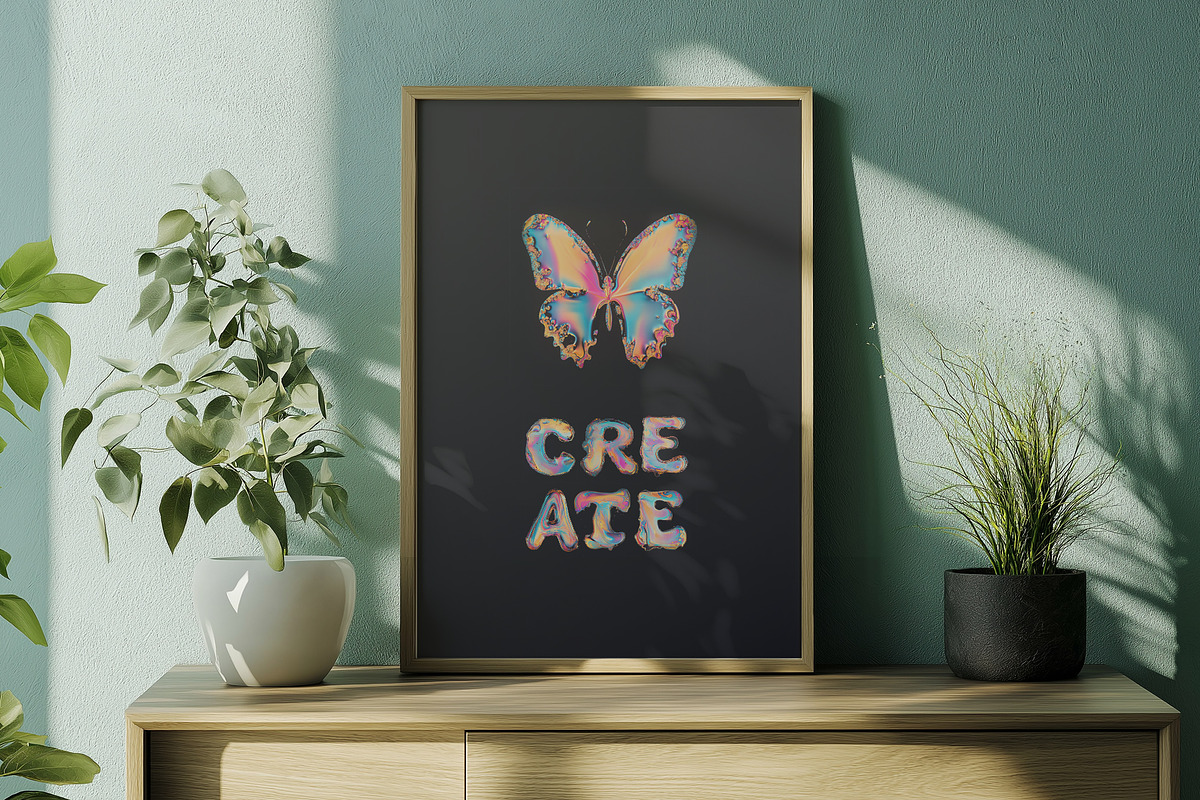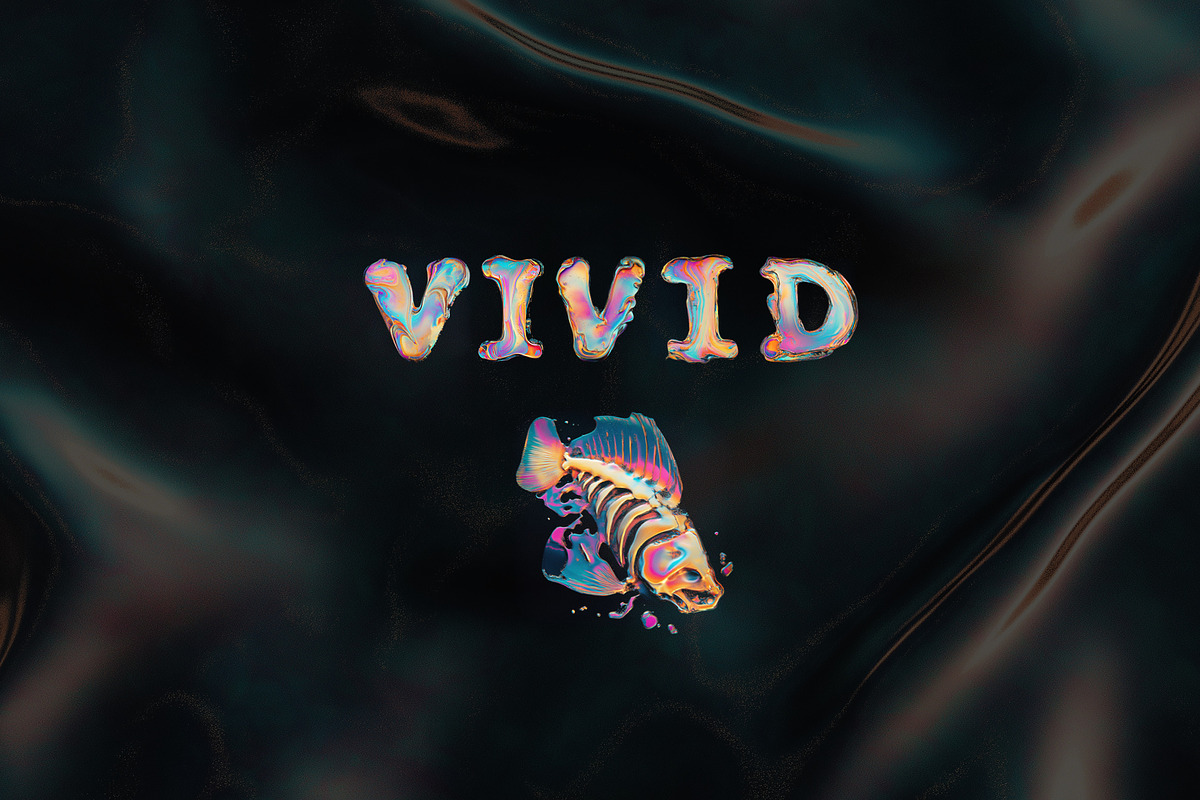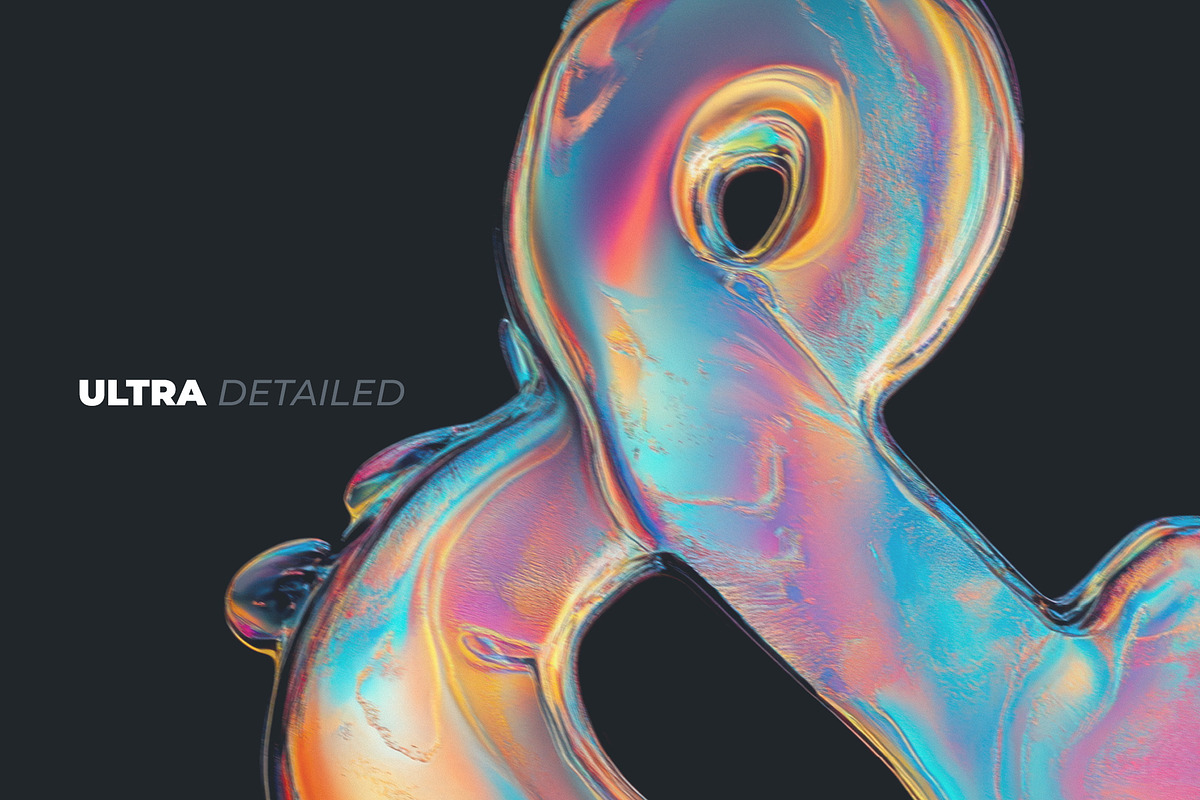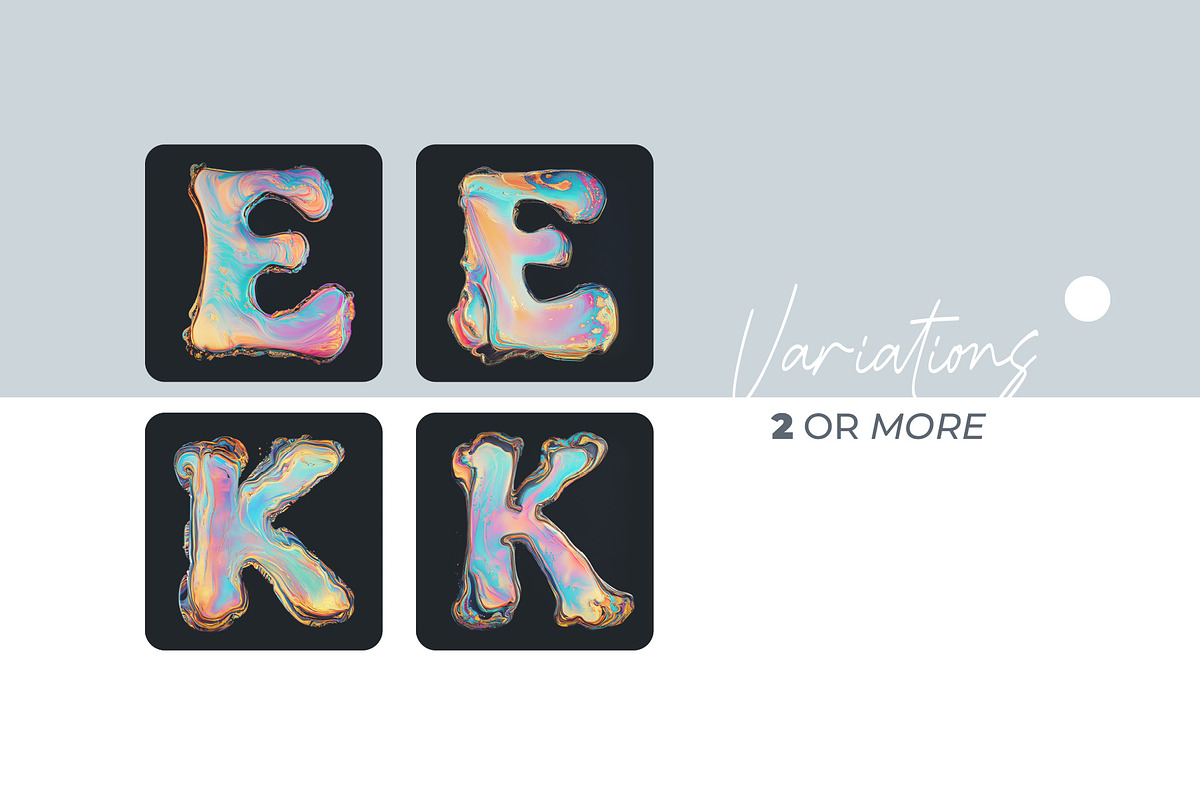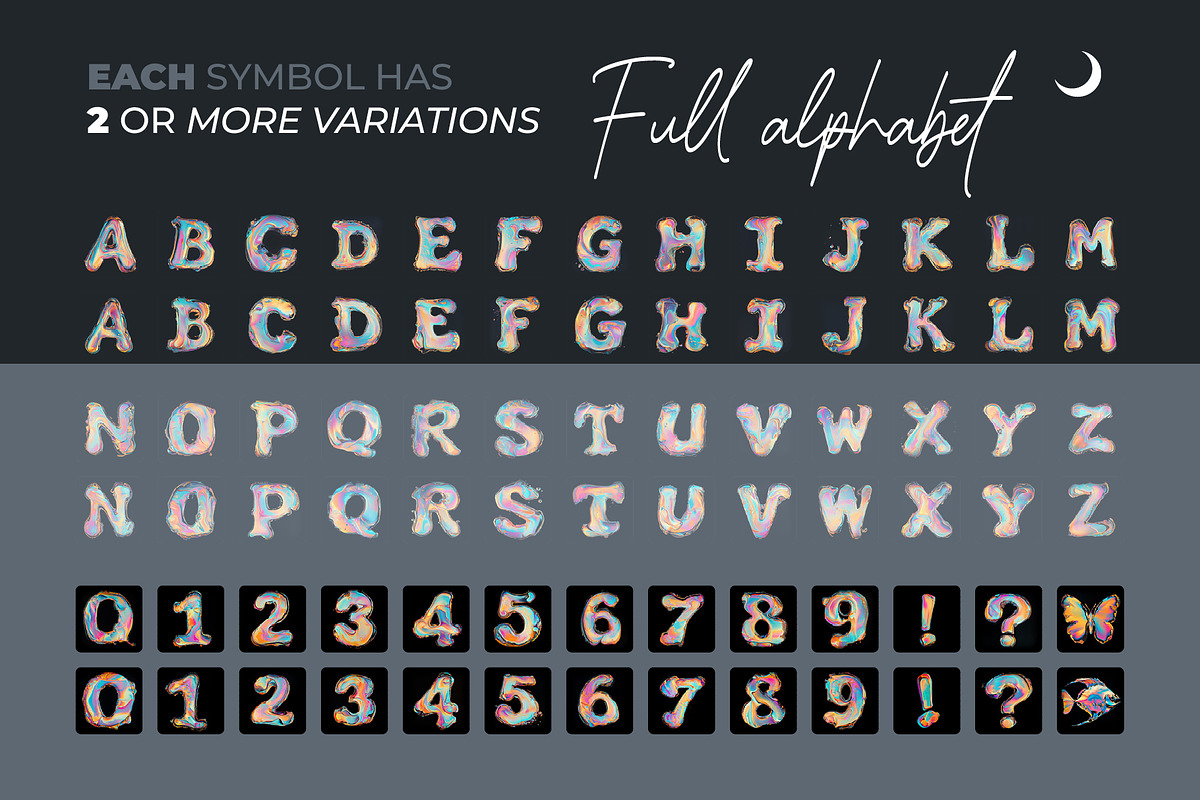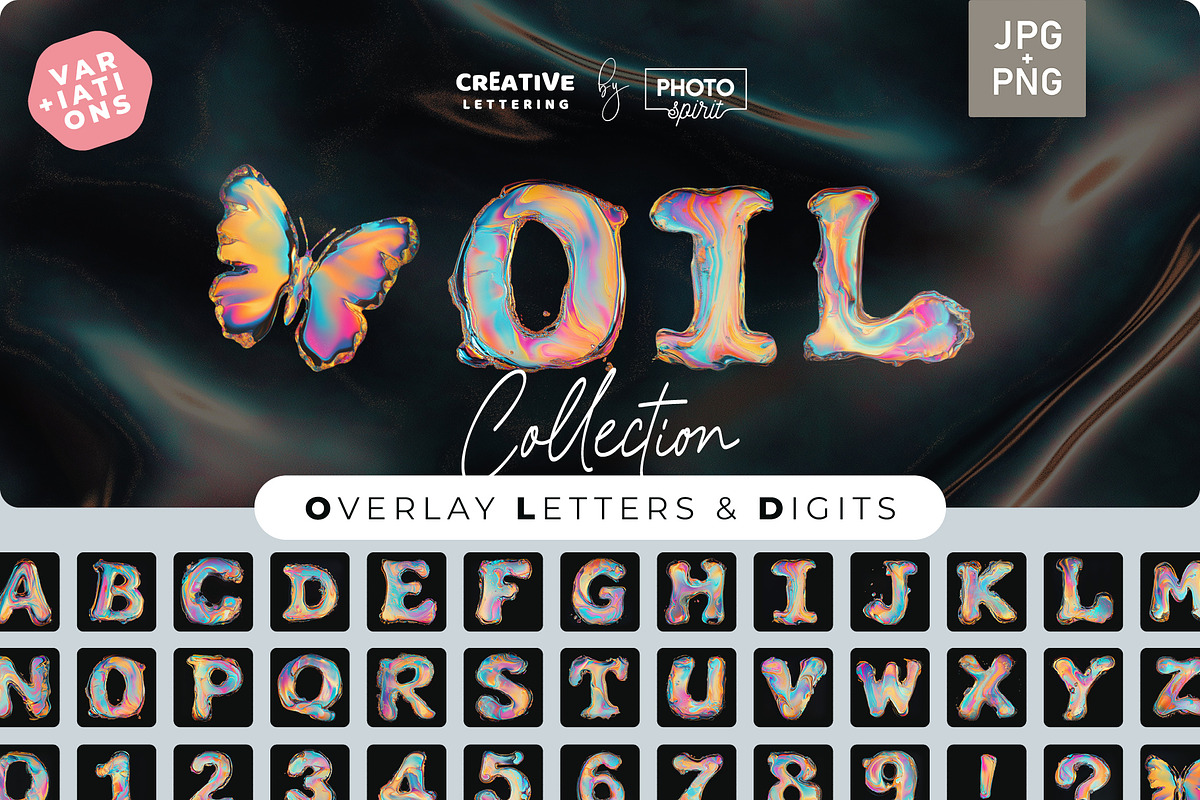
Oil Slick Liquid Letters Overlays
Transform your designs with Oil Slick Liquid Letters Overlays — a mesmerizing collection of letters infused with the stunning fluidity and vibrant colors of oil slicks. This set captures the captivating, iridescent effects of swirling liquid and metallic hues, bringing a unique and artistic touch to your creative projects.
Whether you're creating bold branding materials, dynamic social media content, event invitations, or personal artwork, these overlays will give your designs a distinctive, glossy finish. The fluid motion and vibrant color shifts in each letter will add depth and intrigue to any project, perfect for making your designs stand out.
Complete Alphabet & Symbols: Includes uppercase letters, numbers, and essential symbols to meet all your design needs.
Oil Slick Effect: Each letter features vibrant, fluid color transitions, mimicking the stunning look of an oil slick.
Realistic Liquid Texture: Captures the fluid, shimmering essence of oil slicks for a glossy, dynamic finish in your designs.